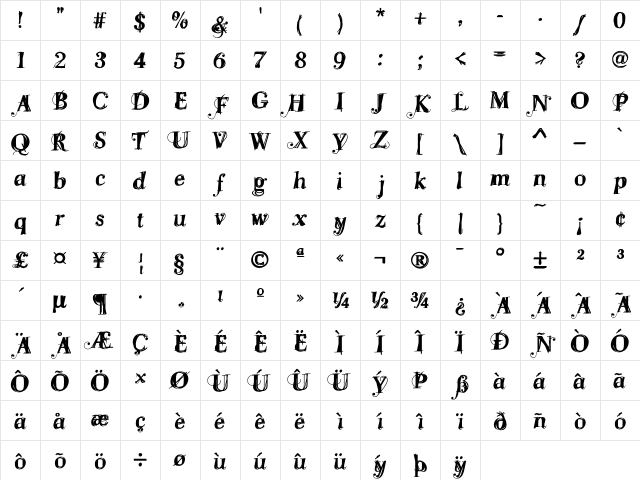
Levona Regular
Design Context for Levona
Levona is a composed and adaptable typeface that performs quietly and consistently across a wide range of design contexts.
Pro Tip: Use Levona in both headline and body roles to test its range before committing to a single application.